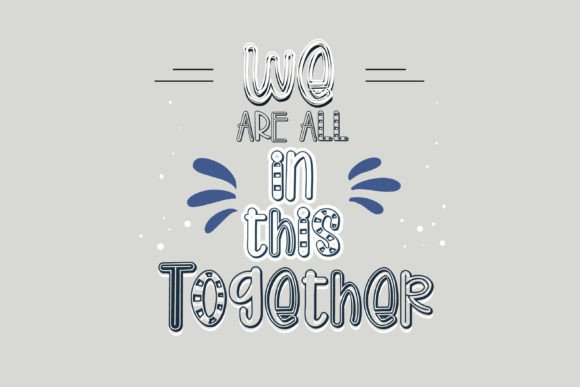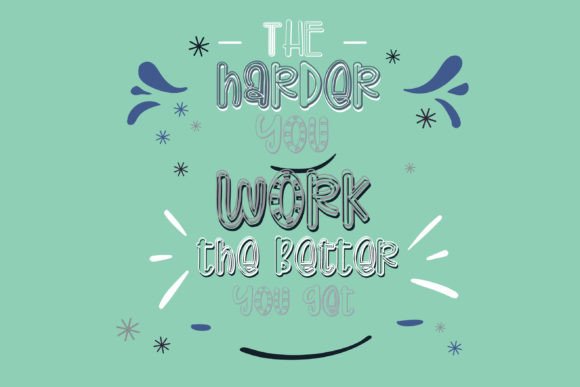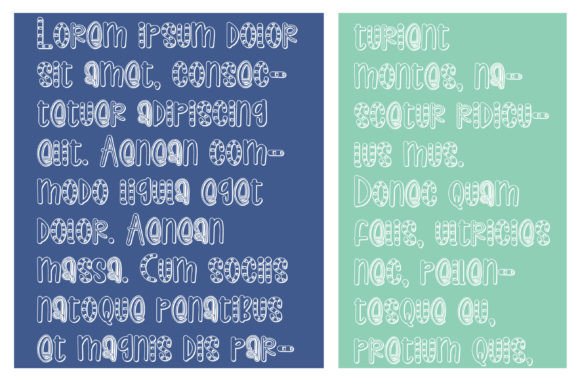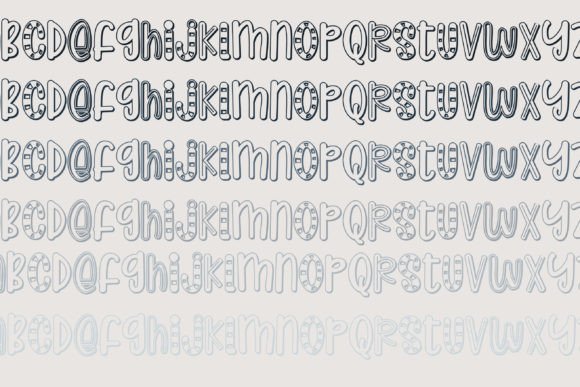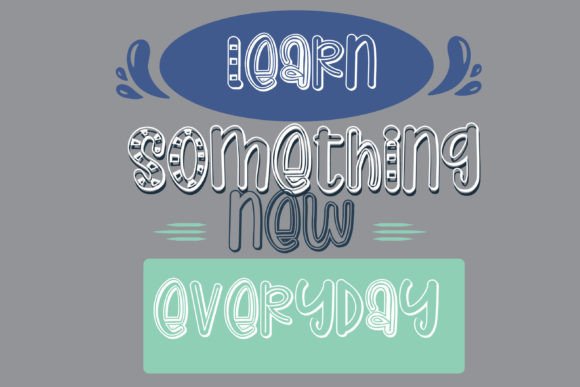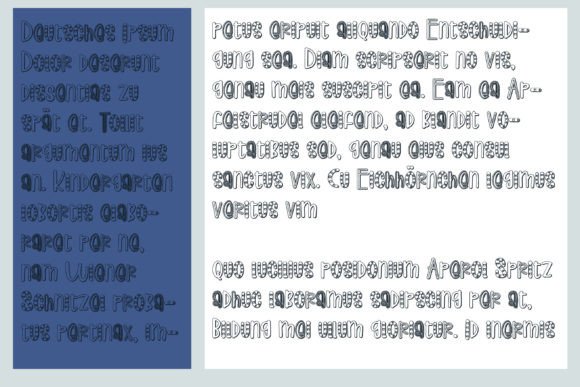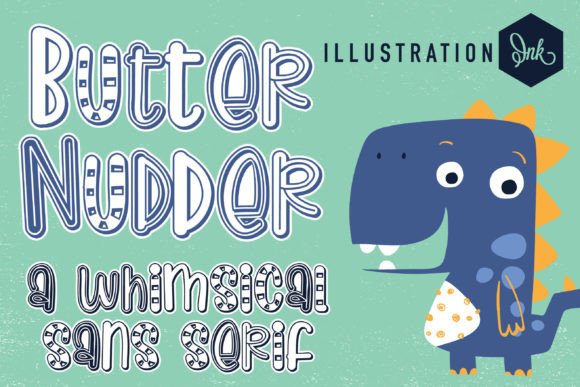
Introducing Butter Nudder Font: The Ultimate Hand-Crafted Delight for Designers and Crafters
Are you tired of using the same old fonts for your designs and crafts? Look no further than the Butter Nudder Font, a whimsical, hand-crafted font that is sure to add a touch of uniqueness to your projects. This charming font features a mix of styles, stripes, in-lines, and more, making it perfect for a variety of applications, from logos and websites to invitations, greeting cards, and everyday text.
A hand-crafted font is a font that is designed to feel unique and crafty. Unlike traditional fonts that are created using computer software, hand-crafted fonts are individually drawn with care, giving them a distinctive, organic look. This type of font is often used for informal projects, such as invitations, greeting cards, and other items that require a personal touch.
Hand-crafted fonts are perfect for designers and crafters who want to add a touch of personality to their work. They can be used for a variety of purposes, from creating eye-catching logos and websites to adding a personal touch to everyday text. With a hand-crafted font like Butter Nudder, you can create unique and eye-catching designs that are sure to stand out.
Features of Butter Nudder Font
The Butter Nudder Font is a true showstopper, with a range of features that make it perfect for designers and crafters. Some of its key features include:
- Whimsical design: The Butter Nudder Font features a whimsical, hand-crafted design that is sure to add a touch of personality to your projects.
- Mix of styles: This font features a mix of styles, including stripes, in-lines, and more, giving you a range of options for your designs.
- 3D version included: The Butter Nudder Font comes with a 3D version, allowing you to add depth and dimension to your designs.
- Hand-crafted with care: Each letter in the Butter Nudder Font was individually drawn with care, giving it a unique, organic look.
Uses for Butter Nudder Font
The Butter Nudder Font is perfect for a variety of projects, including:
- Logos: The unique, hand-crafted design of the Butter Nudder Font makes it perfect for creating eye-catching logos that are sure to stand out.
- Websites: Add a touch of personality to your website with the Butter Nudder Font, perfect for headings, titles, and more.
- Invitations: The whimsical design of the Butter Nudder Font makes it perfect for invitations, from birthday parties to weddings and more.
- Greeting cards: Add a personal touch to your greeting cards with the Butter Nudder Font, perfect for birthdays, holidays, and more.
- Everyday text: The Butter Nudder Font is also perfect for everyday text, adding a touch of personality to your writing.
Why Choose Butter Nudder Font?
So why choose the Butter Nudder Font for your designs and crafts? Here are just a few reasons:
- Unique design: The Butter Nudder Font features a unique, hand-crafted design that is sure to stand out.
- Versatile: This font is perfect for a variety of projects, from logos and websites to invitations and everyday text.